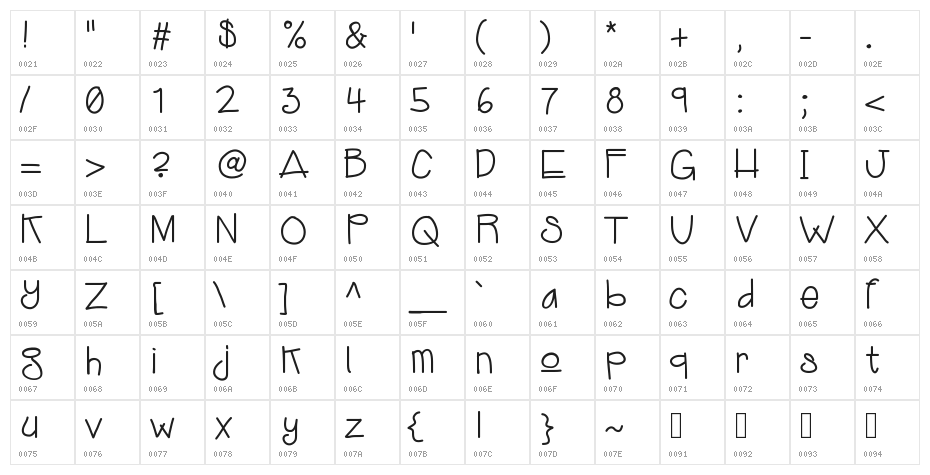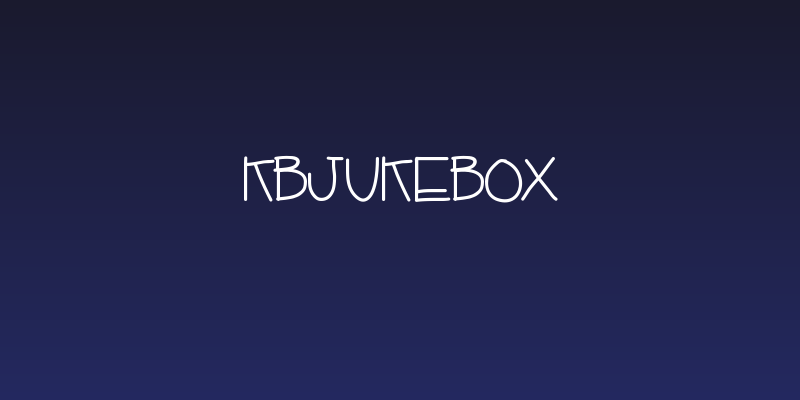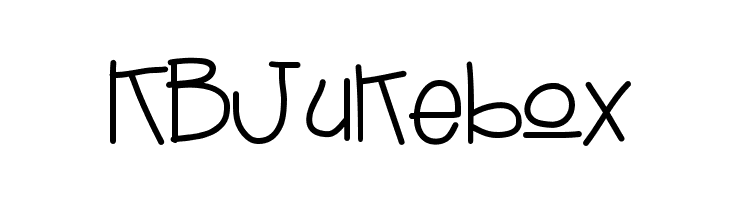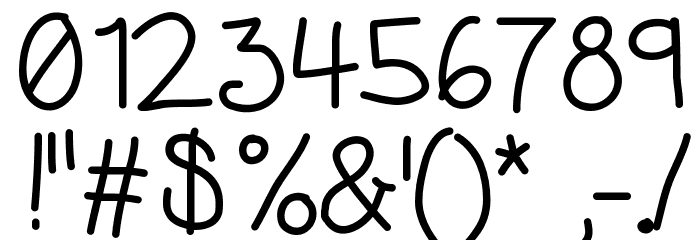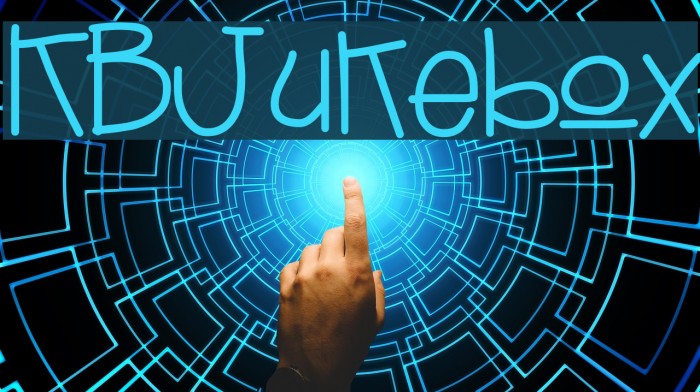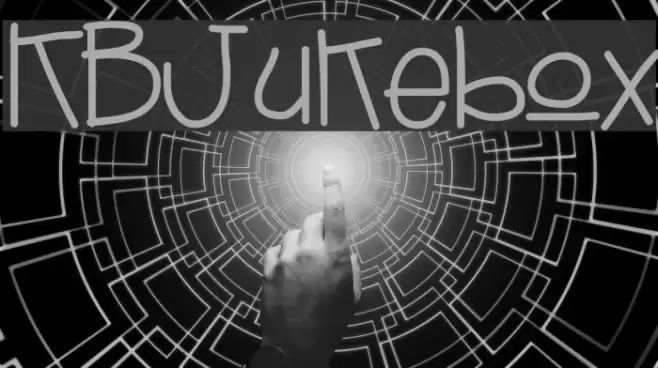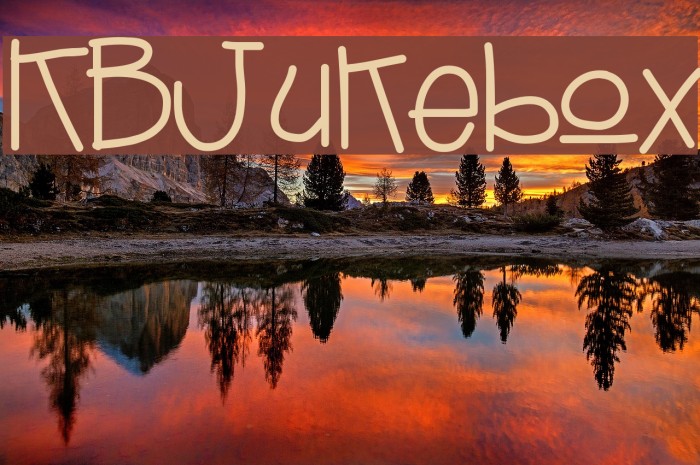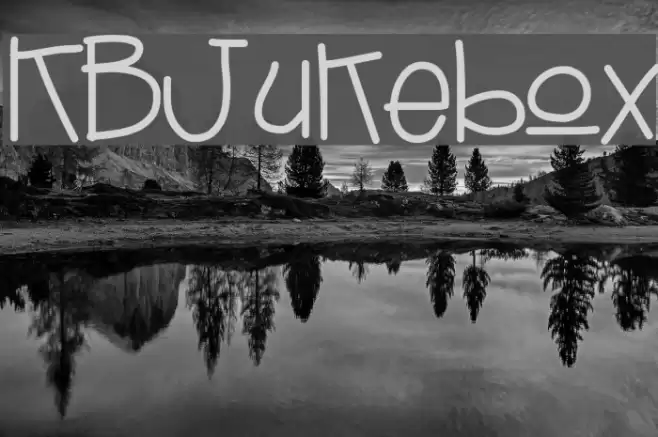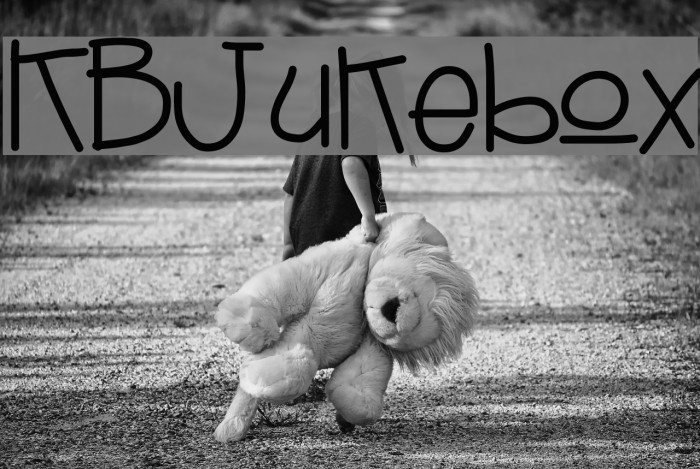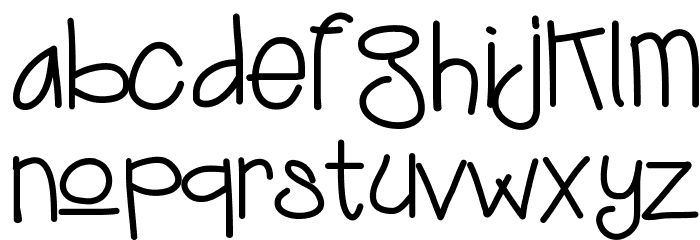
KBJukebox Font
KBJukebox Description
This playful and whimsical font features a handwritten style with a casual and friendly appearance. The characters are slightly irregular, giving it a personal touch that mimics natural handwriting. The uppercase letters are bold and distinct, while the lowercase letters maintain a consistent flow with rounded edges. Numbers and special characters are crafted with the same playful aesthetic, making them easily recognizable. This font is perfect for projects that require a fun and approachable vibe, such as children's books, invitations, or creative branding. Its unique style stands out without being overly complex, ensuring readability while adding a touch of personality.
| Overall Style | Playful |
| Use Case | Headlines, Logos, Invitations |
| Proposed Projects | Ideal for children's books, invitations, creative branding, and playful designs. |